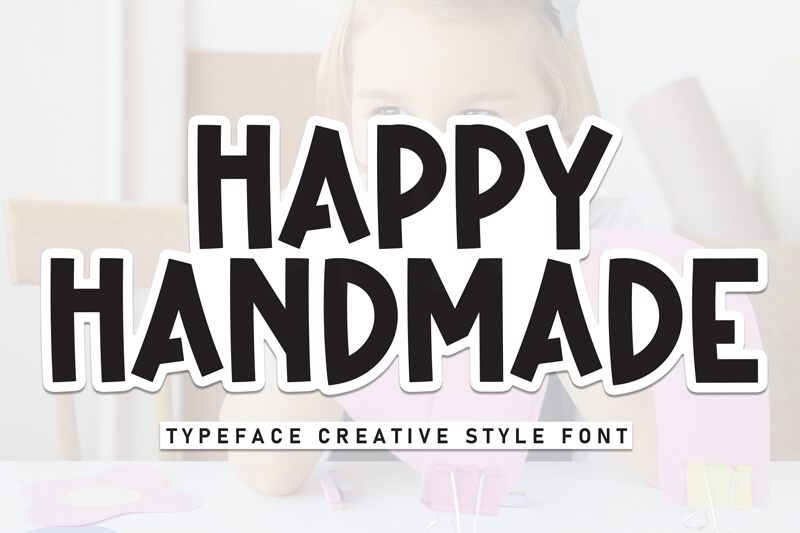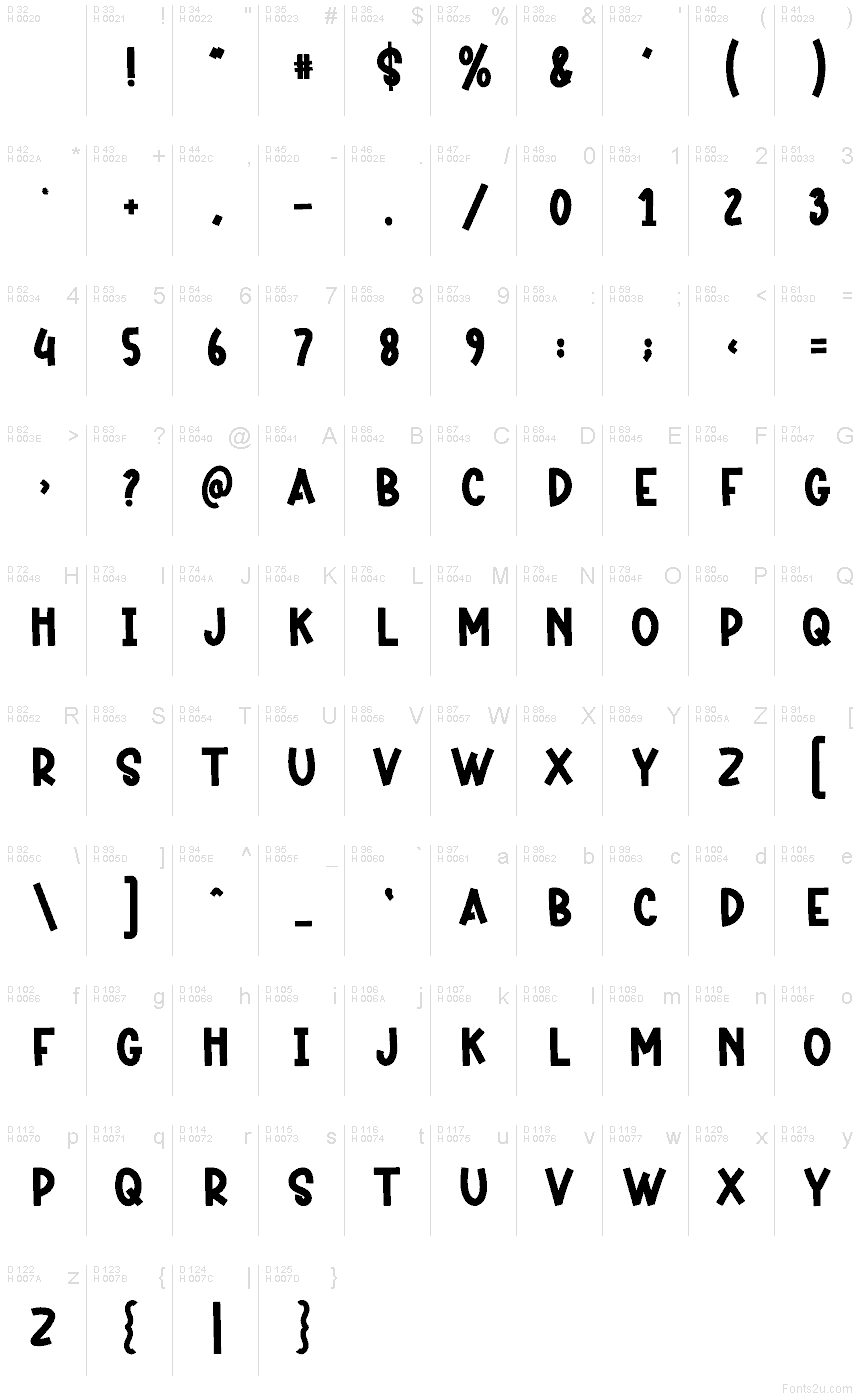
Happy Handmade
Happy Handmade font is one of the latest designs by Scratchones, a free display font with comic characters based on sans-serif irregular shapes. The typeface has an artistic and handcrafted feel, along with a casual and contemporary appeal. Its characters can deliver joy, positivity, and happiness when combined in logotypes combined with illustrations.
Test Happy by designing logos for pets shops, children’s clothes brands, kid’s books covers, food packaging labels… or other more possible ideas. With boldness on your side this time around as well as being available for free usage!